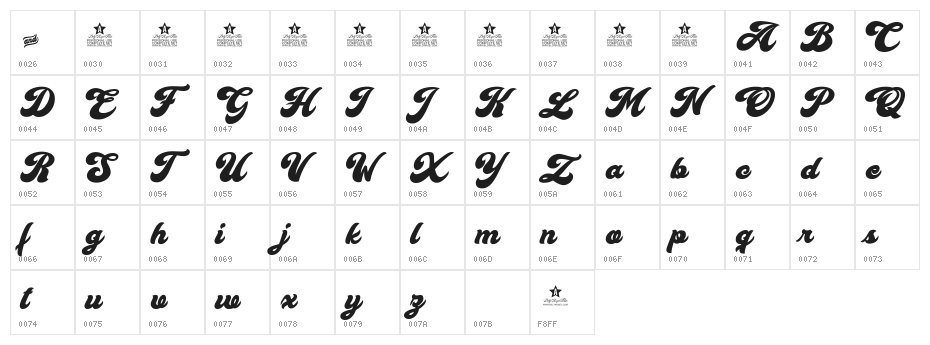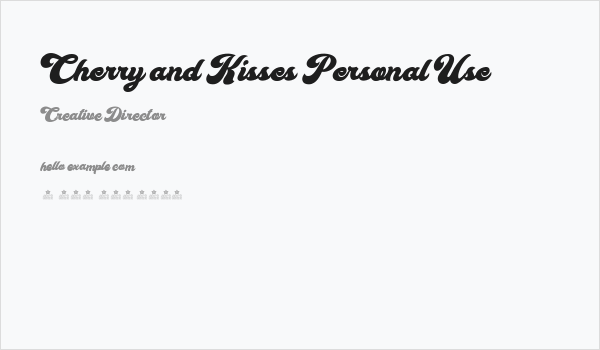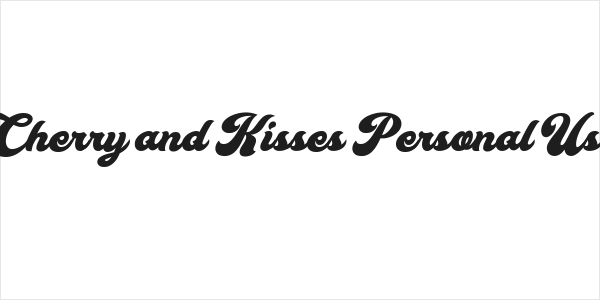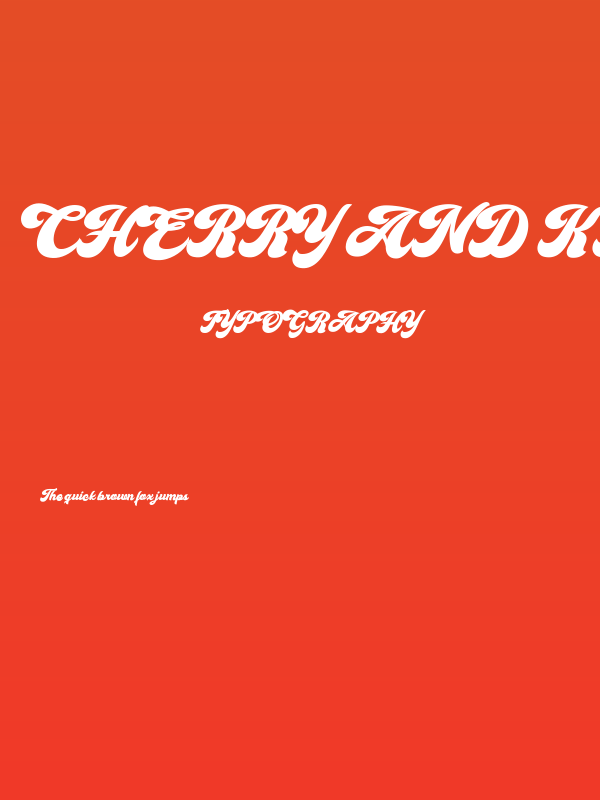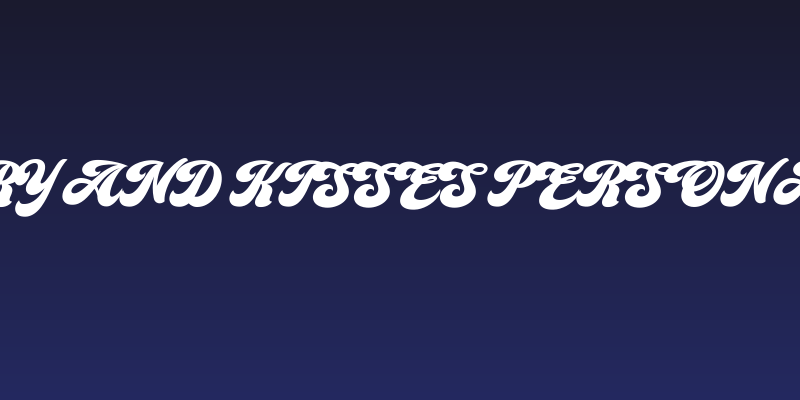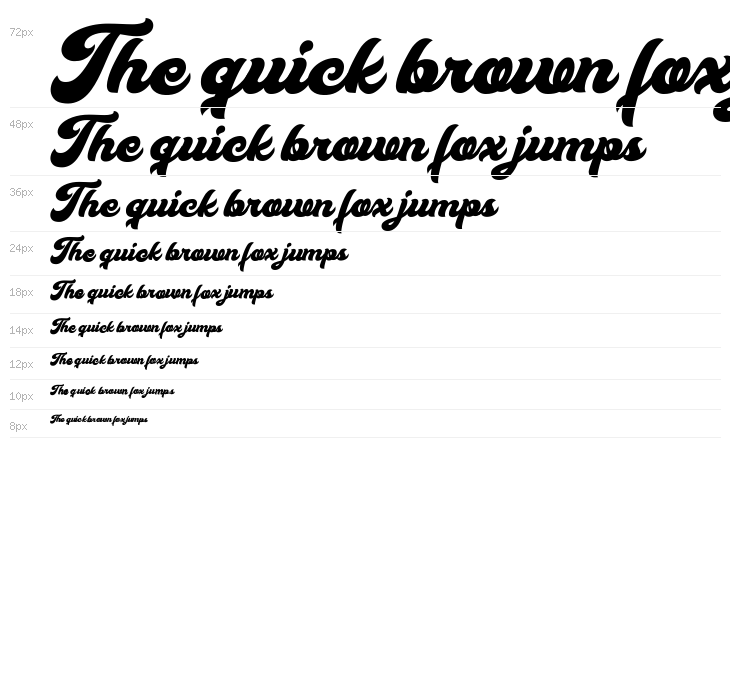
Cherry and Kisses Personal Use Font
Cherry and Kisses Personal Use Description
This font features a bold, cursive style with a playful and energetic flair. The letters are interconnected, creating a flowing script that is both elegant and dynamic. The uppercase letters are slightly more ornate, with swashes and loops that add a touch of sophistication. The lowercase letters maintain a consistent rhythm, enhancing readability while preserving the font's decorative nature. The numbers and special characters are designed to match the overall style, ensuring a cohesive look across all text elements. This font is ideal for projects that require a personal touch, such as invitations, greeting cards, or branding materials.